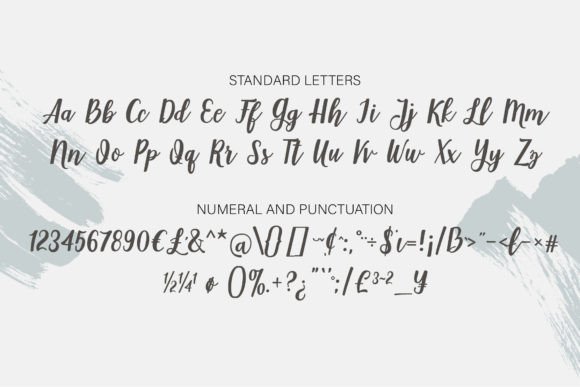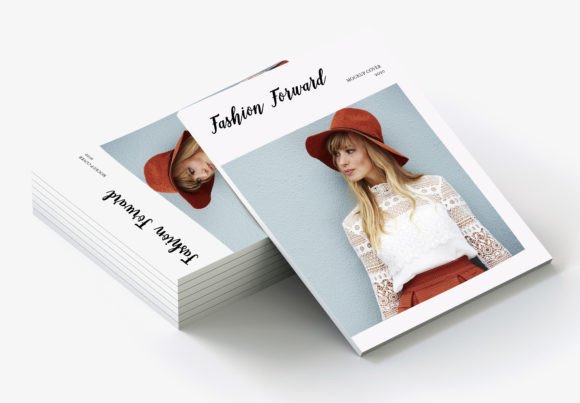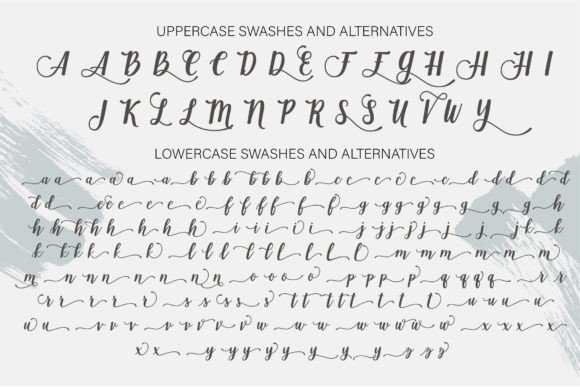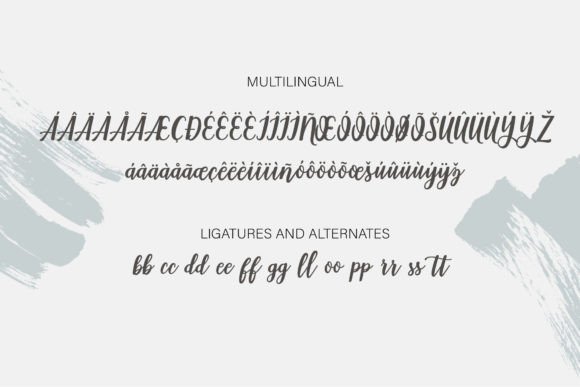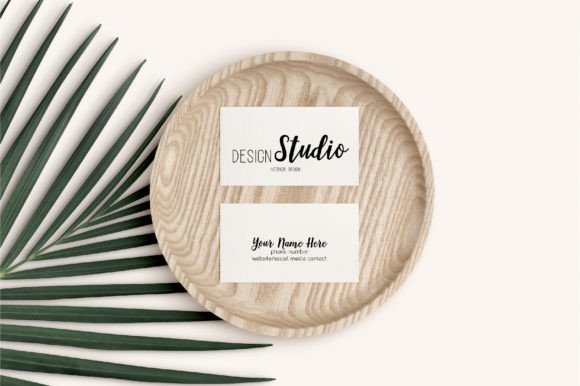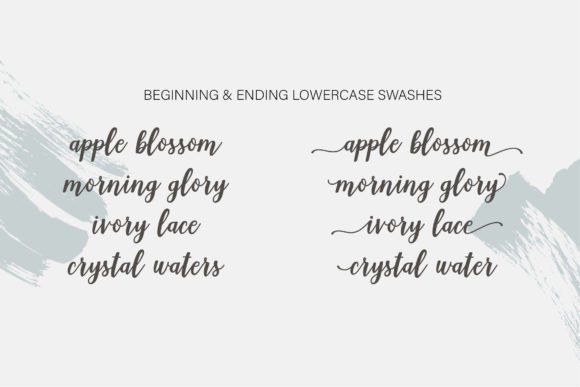
Introducing Angelica Font: Unleash Your Creativity with a Boho-Chic Typeface
Are you a designer, blogger, or crafty entrepreneur looking for a font that captures the essence of free-spirited creativity? Look no further than Angelica Font, a stunning boho-chic typeface designed to add a touch of whimsy and individuality to your projects. In this article, we’ll dive into the world of Angelica Font, exploring its unique features, uses, and benefits for lifestyle blogs, bohemian-themed events, and earthy branding.
The Bohemian Spirit of Angelica Font
Angelica Font is more than just a typeface – it’s an expression of artistic freedom and creativity. With its eclectic, bohemian flair, this font is perfect for designers who want to add a dash of personality to their work. Whether you’re creating a lifestyle blog, designing invitations for a bohemian-themed wedding, or crafting a brand identity for an earthy business, Angelica Font is the perfect choice.
Key Features of Angelica Font
- Whimsical and Artistic Style: Angelica Font boasts a unique, hand-crafted design that exudes a sense of creativity and playfulness.
- PUA Encoding: This font is PUA (Private Use Area) encoded, making it easy to access a wide range of glyphs and ligatures.
- Boho-Chic Aesthetic: With its eclectic, bohemian vibe, Angelica Font is perfect for designs that require a touch of free-spirited creativity.
Uses for Angelica Font
Angelica Font is an incredibly versatile typeface that can be used in a variety of creative projects. Here are some ideas to get you started:
- Lifestyle Blogs: Add a touch of bohemian chic to your blog with Angelica Font, perfect for bloggers who focus on topics like travel, wellness, and sustainability.
- Bohemian-Themed Events: Create stunning invitations, posters, and signage for bohemian-themed weddings, festivals, and parties.
- Earthy Branding: Use Angelica Font to create a brand identity that reflects your business’s free-spirited and creative values.
- Stationery and Paper Crafts: Add a touch of whimsy to your stationery, journals, and paper crafts with Angelica Font.
Benefits of Using Angelica Font
So why choose Angelica Font for your next project? Here are just a few benefits of using this amazing typeface:
- Unique and Eye-Catching: Angelica Font is sure to grab attention with its distinctive, boho-chic style.
- Easy to Use: With PUA encoding, accessing glyphs and ligatures has never been easier.
- Versatile: Angelica Font can be used in a wide range of creative projects, from digital designs to print materials.
- Supports Creative Expression: This font is designed to inspire creativity and individuality, making it perfect for designers and crafters who value self-expression.
Angelica Font is a game-changer for designers and crafters who want to add a touch of bohemian chic to their projects. With its whimsical, artistic style and PUA encoding, this font is perfect for lifestyle blogs, bohemian-themed events, and earthy branding. Whether you’re looking to create a unique brand identity or simply want to add some personality to your designs, Angelica Font is the perfect choice. So why wait? Download Angelica Font today and unleash your creativity!
- What is PUA encoding? PUA (Private Use Area) encoding allows designers to access a wide range of glyphs and ligatures, making it easier to create unique and creative designs.
- Is Angelica Font suitable for digital designs? Yes, Angelica Font is perfect for digital designs, including social media graphics, blog posts, and website headers.